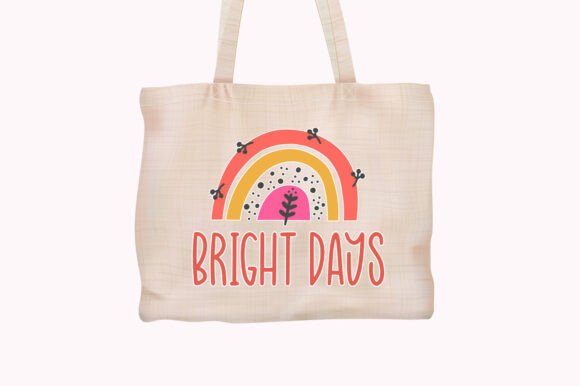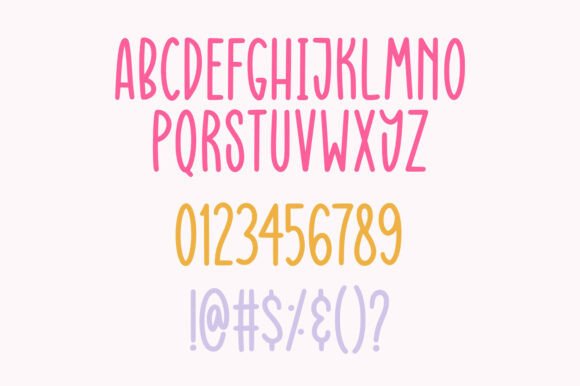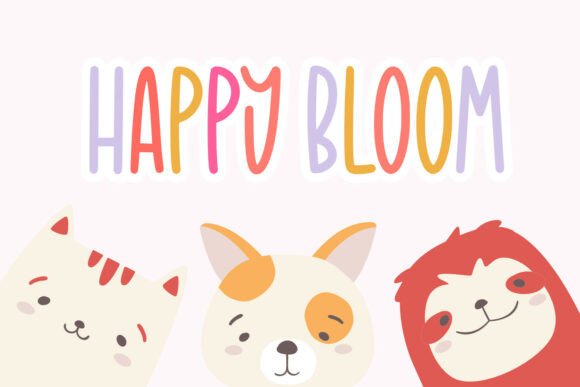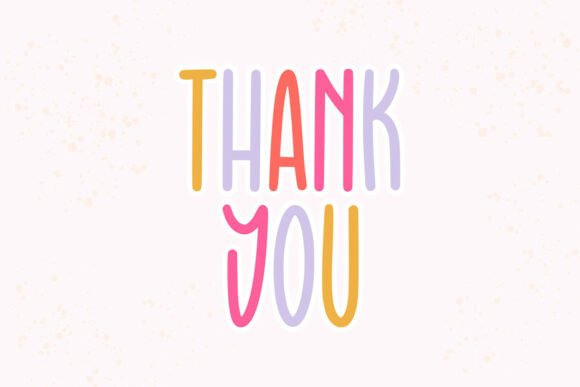
Introduction to Crilbown Colors Font Font
Fonts play a crucial role in design, and the Crilbown Colors Font font is a typeface that brings both character and versatility to any project. Whether you’re working on a branding project, a website, or a print design, the Crilbown Colors Font font offers a unique style that can elevate your work.
| 📌 Font Name | Crilbown Colors Font |
| 👤 Author | Typefar |
Crilbown Colors is a fun and cheerful sans-serif font with a bright personality.
Crilbown Colors is a fun and cheerful sans-serif font with a bright personality. Designed with clean shapes and playful energy, this font is perfect for modern branding, posters, kids’ designs, packag
Key Features of Crilbown Colors Font Font
Why Choose Crilbown Colors Font Font?
The Crilbown Colors Font font is more than just a typeface – it’s a design tool that helps you communicate your message with style and clarity. Its unique character set and versatile design make it suitable for a wide range of applications, from elegant invitations to bold headlines.
With its carefully crafted letterforms and balanced proportions, the Crilbown Colors Font font ensures readability and visual appeal across all mediums.
What makes Crilbown Colors Font font special?
The Crilbown Colors Font font stands out with its unique design, exceptional readability, and versatility across various design applications.